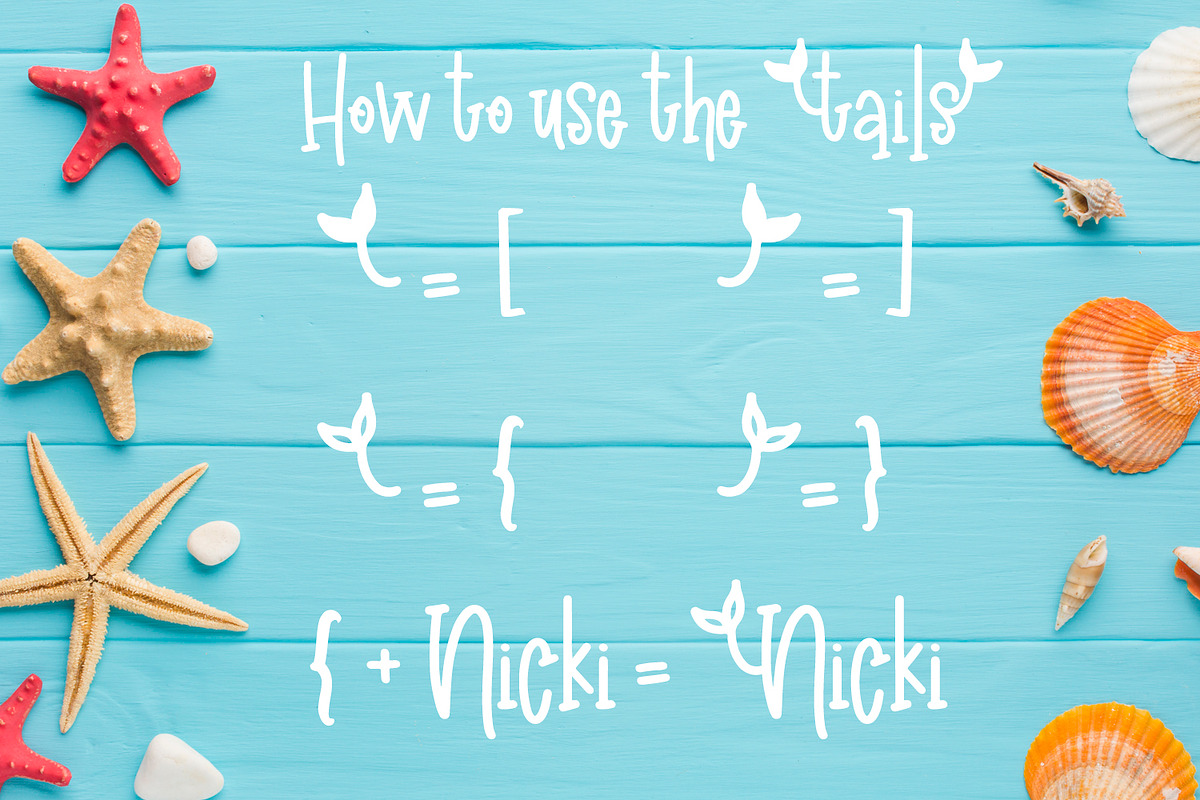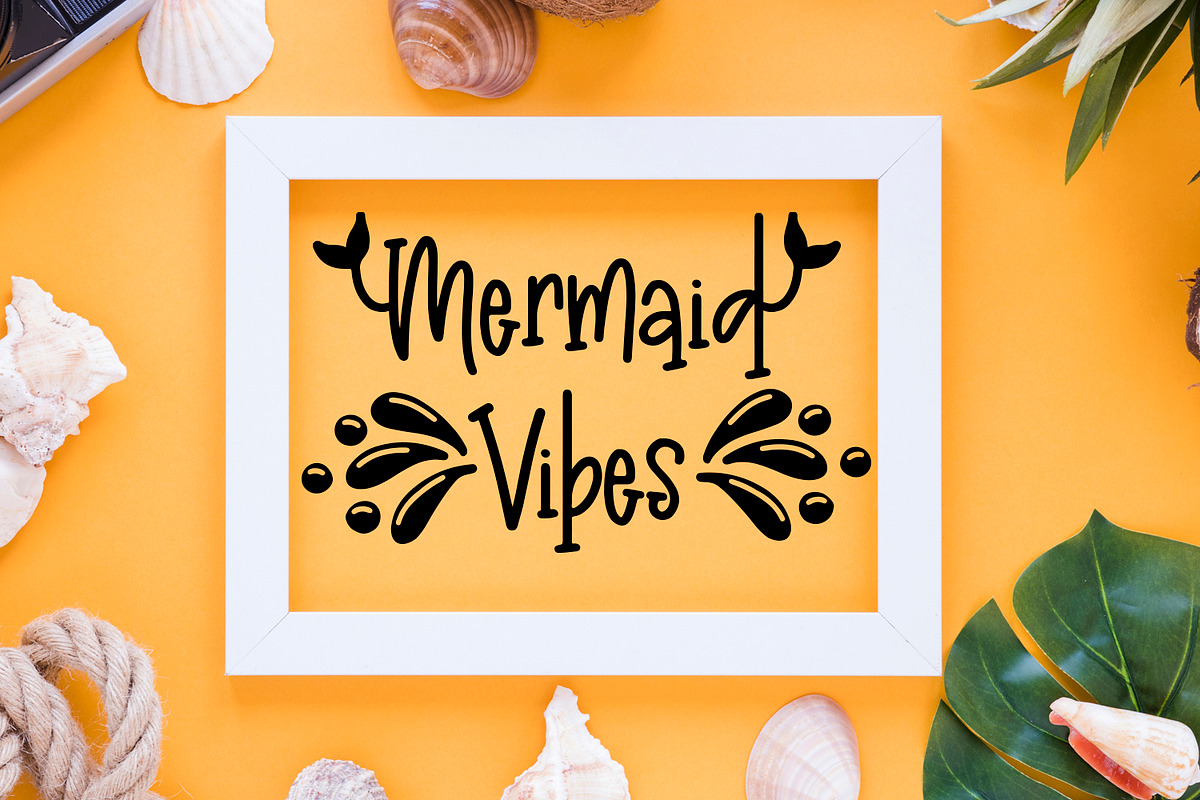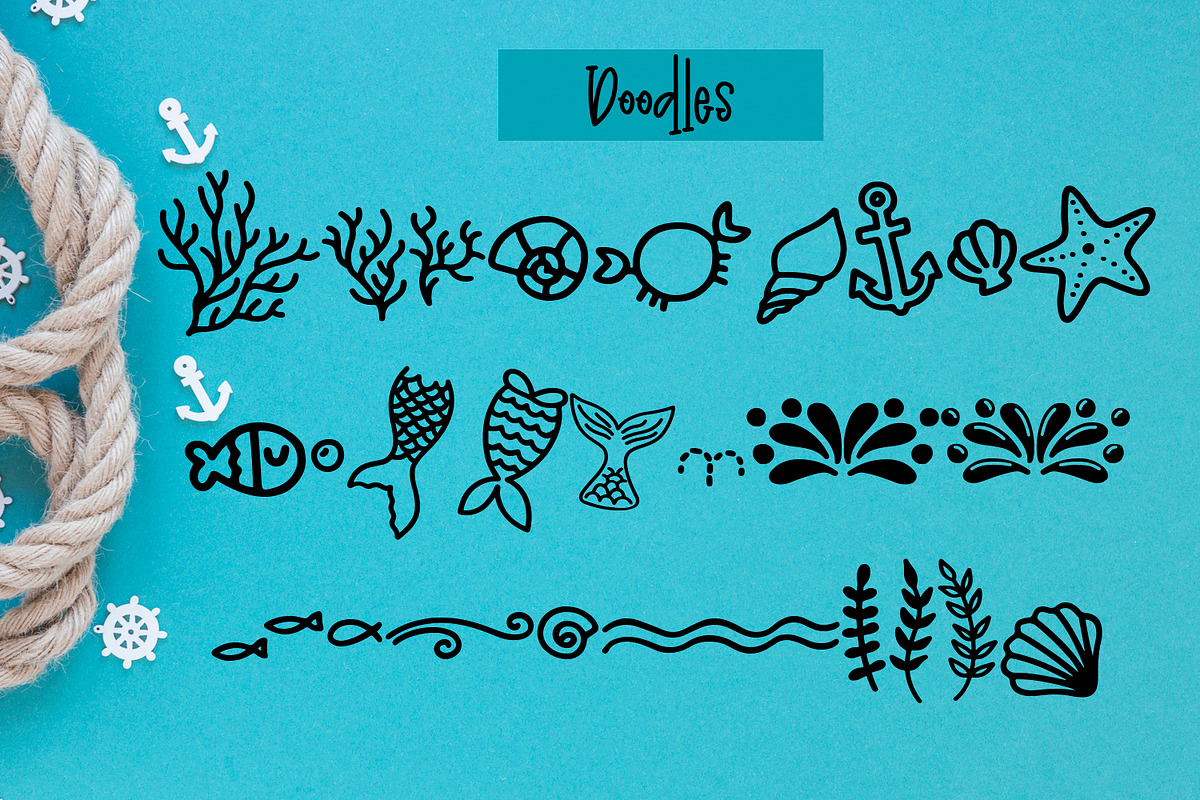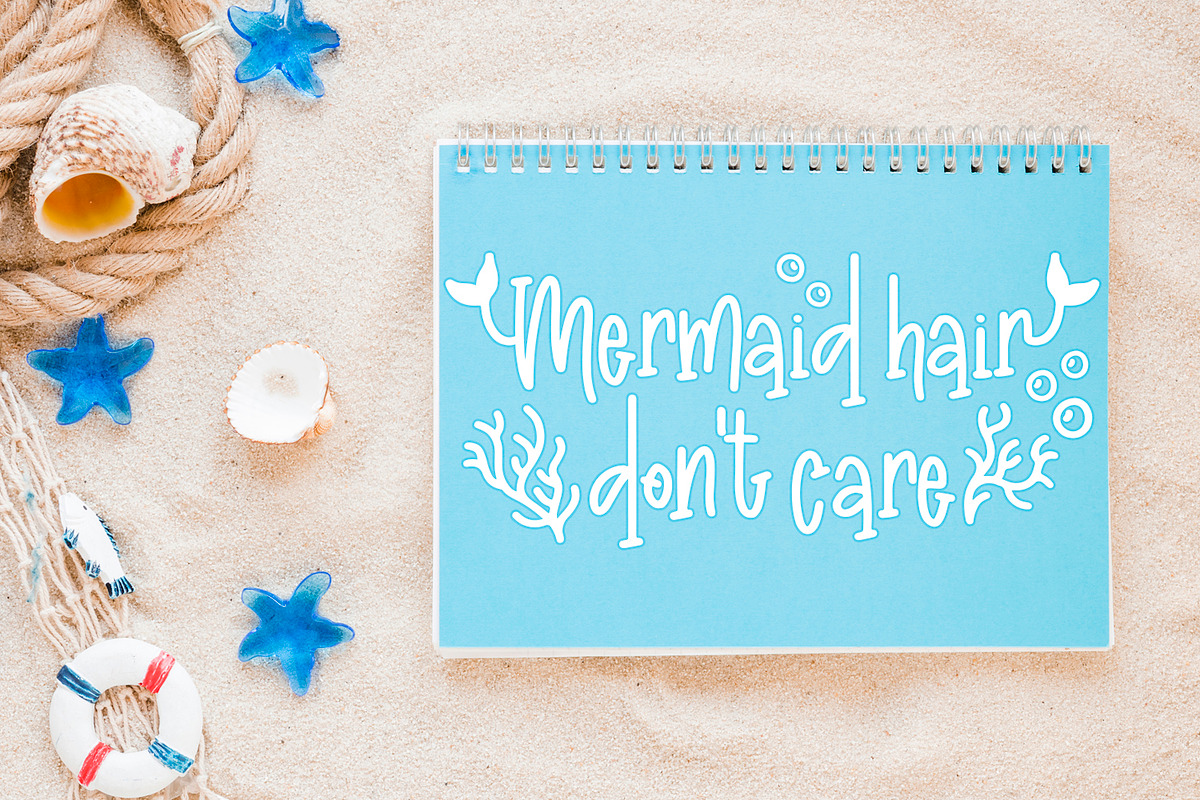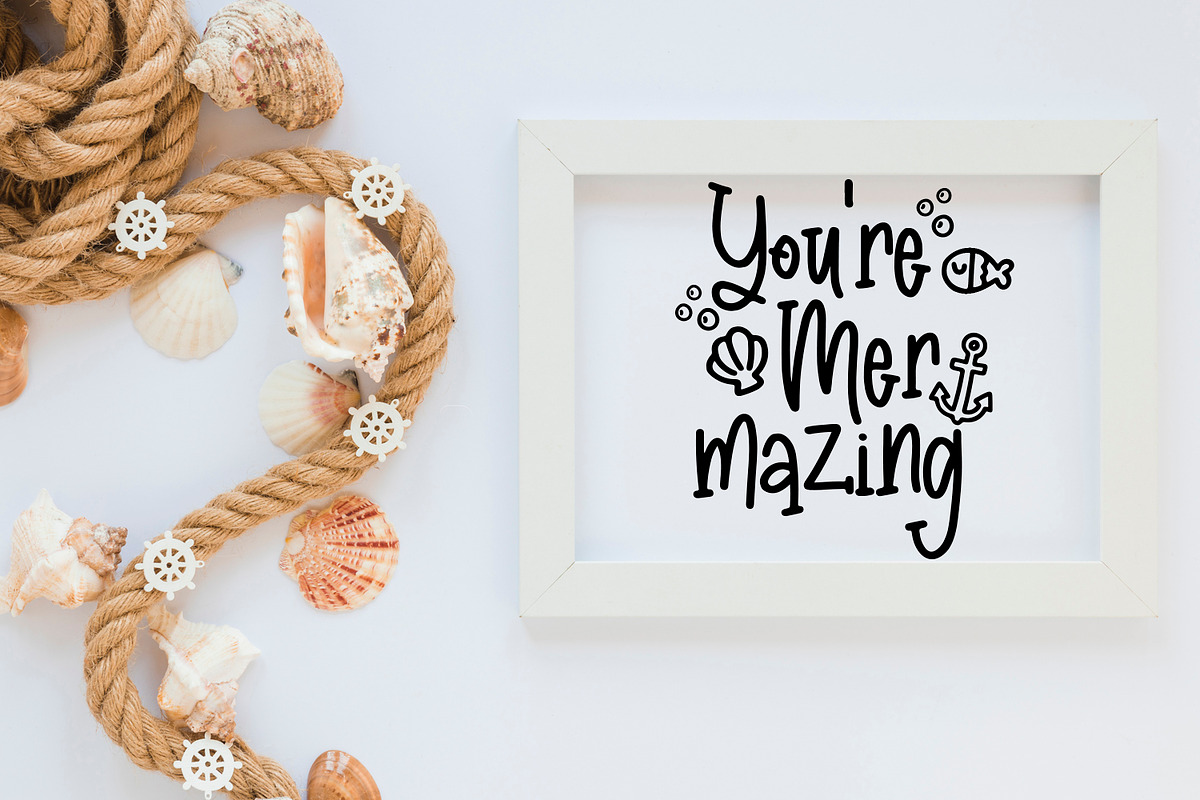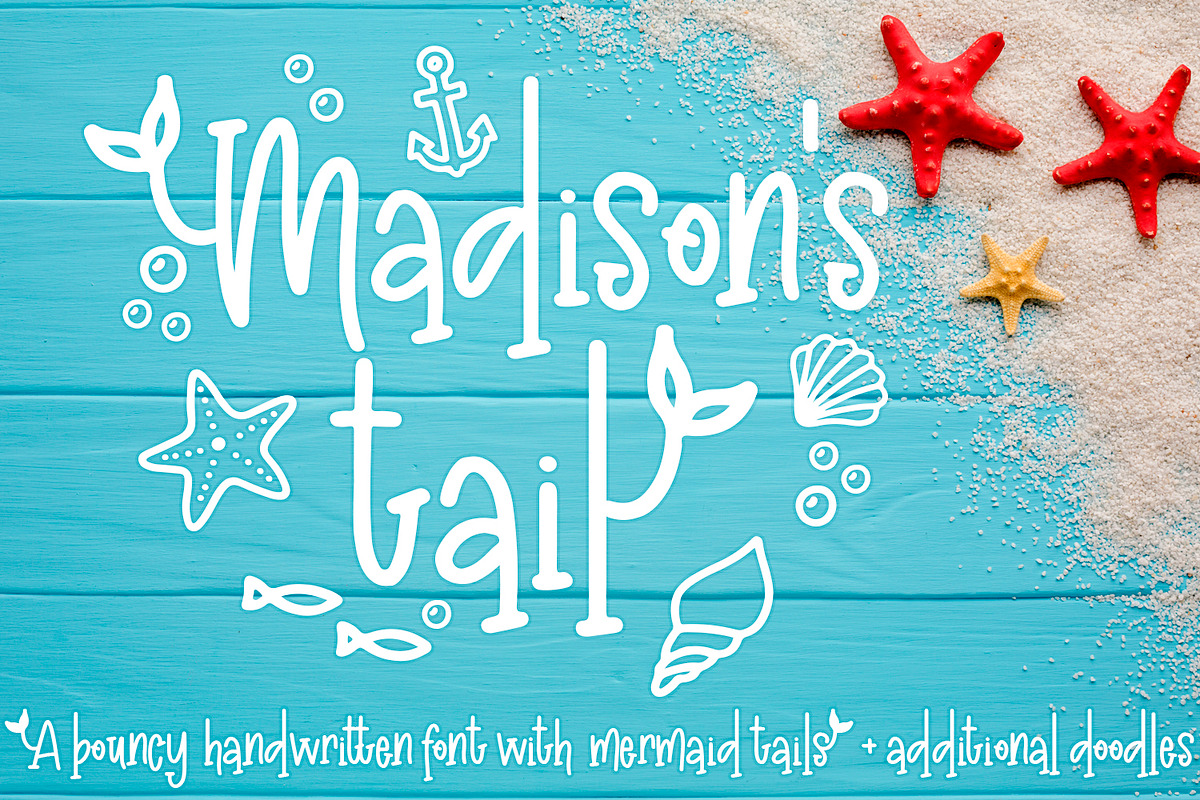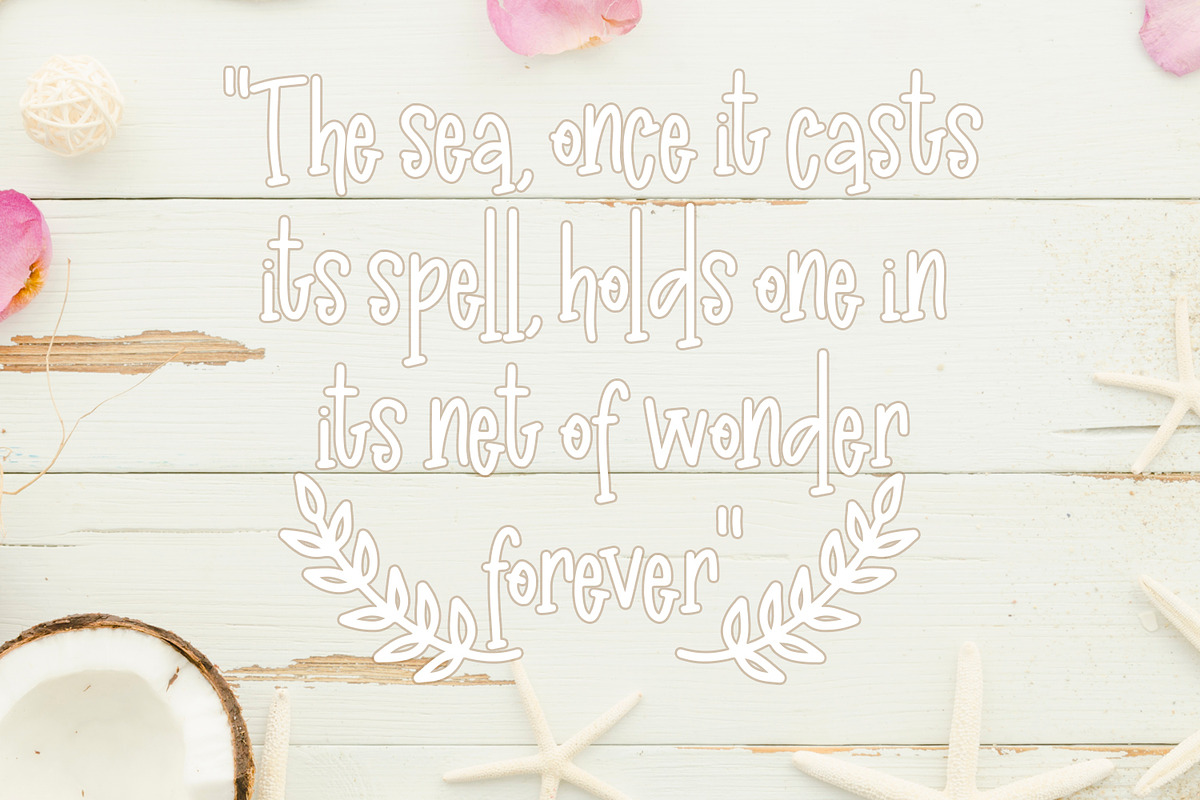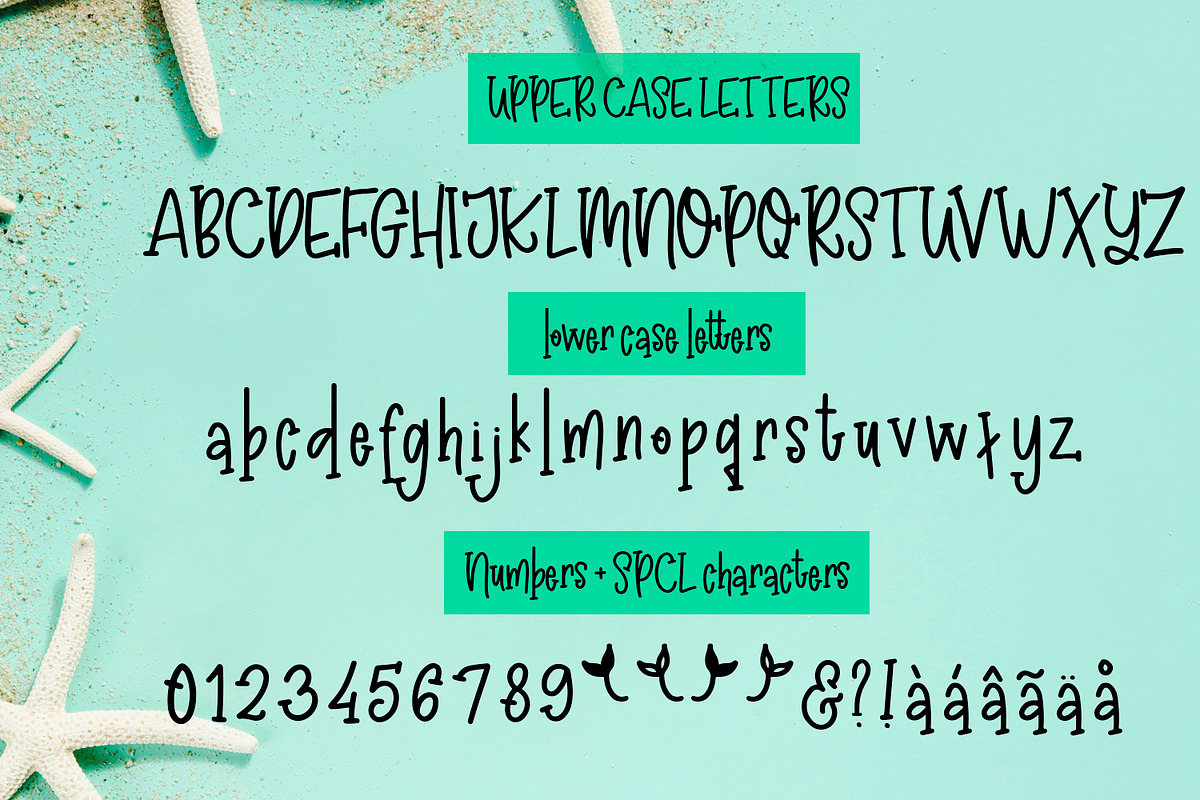
Madison's Tail
Get ready to add some fun and whimsy to your designs with Madison’s Tail! This unique handwritten font lets you add mermaid tails to your letters, making it perfect for creating designs that are playful and fun. Plus, you’ll get some free sea-themed doodles to use in your designs! Whether you’re creating t-shirts, mugs, or just want to add a touch of personality to your designs, Madison’s Tail is the perfect choice. With its playful design elements and unique features, this font is sure to make your designs stand out!